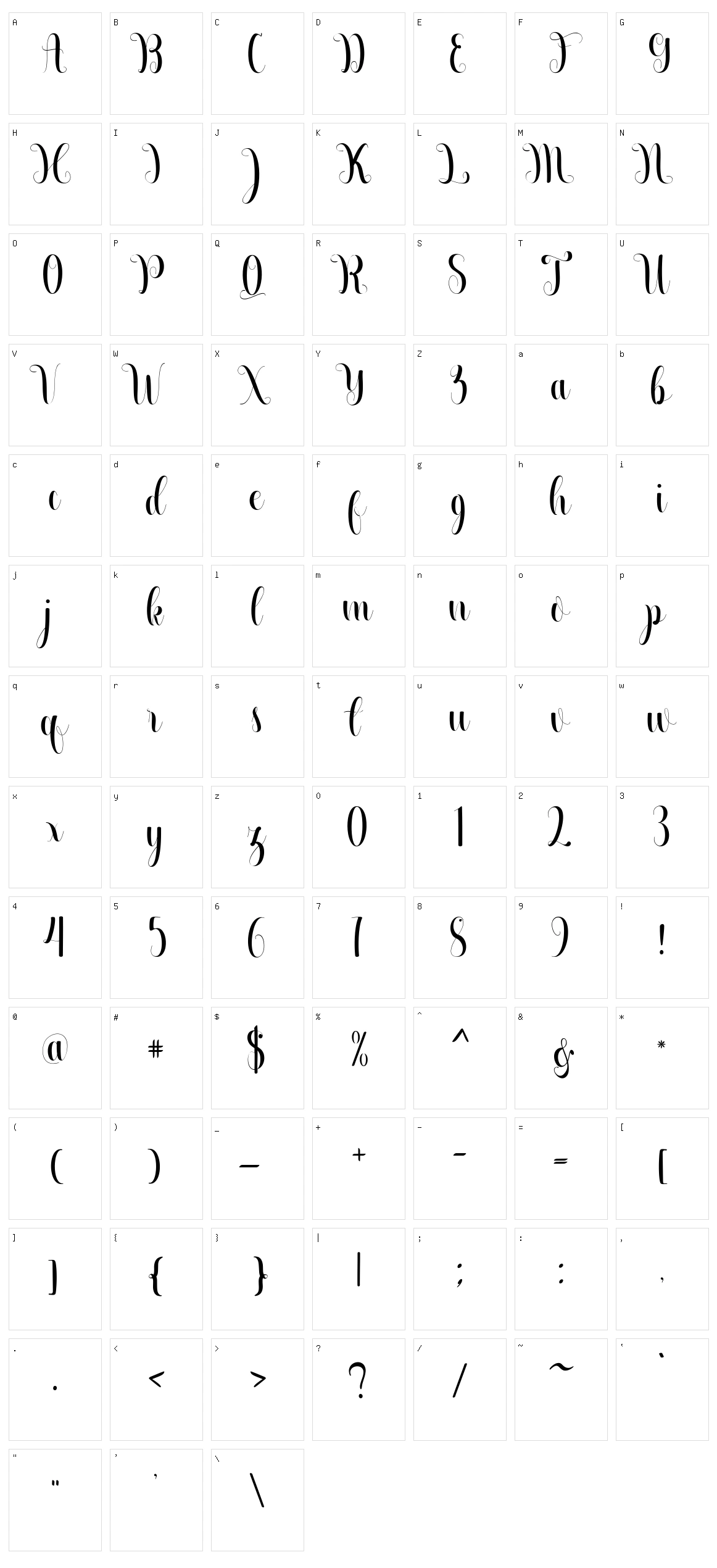
The free font Beautiful Calligraphy is carefully designed by Deniz86, showcasing a thoughtful balance of creativity and usability and falls under the Script font style. When you download the ZIP file, it contains only 26.69 KB of font files, making it lightweight and quick to download. Please review the license details below to understand permitted usage and distribution rights. If license information is not available, we recommend using this font for personal projects only or contacting the author directly for commercial usage permissions.